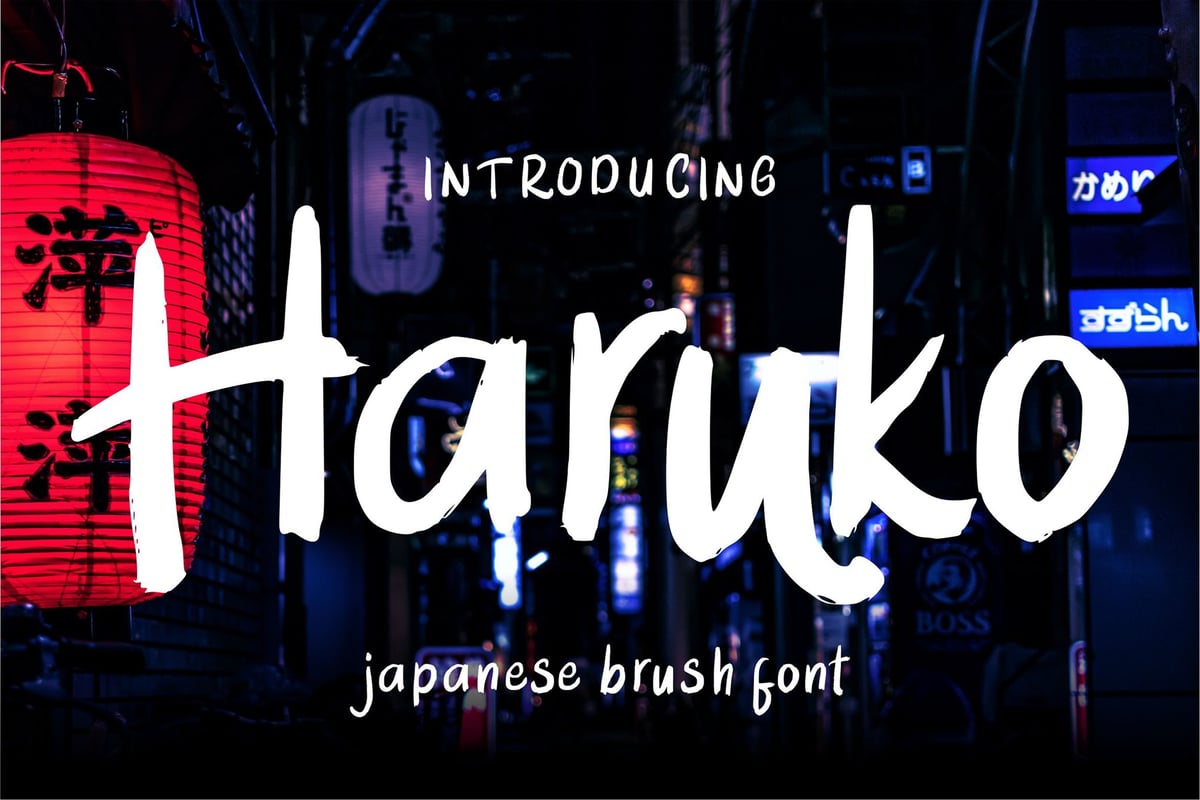
Free Haruko - Brush Font
Bold, expressive, and full of character — Haruko is a Japanese-inspired brush font built for designs that demand attention.
With its authentic calligraphy style and hand-brushed strokes, Haruko brings an organic, artistic energy to any project. Whether you're designing invitations, branding materials, business cards, quotes, or posters, this typeface delivers striking results with ease.
Haruko includes a rich set of OpenType features, giving you creative flexibility right out of the box:
- Stylistic Sets
- Stylistic Alternates
- Contextual Alternates
- Swash characters
- Ligatures